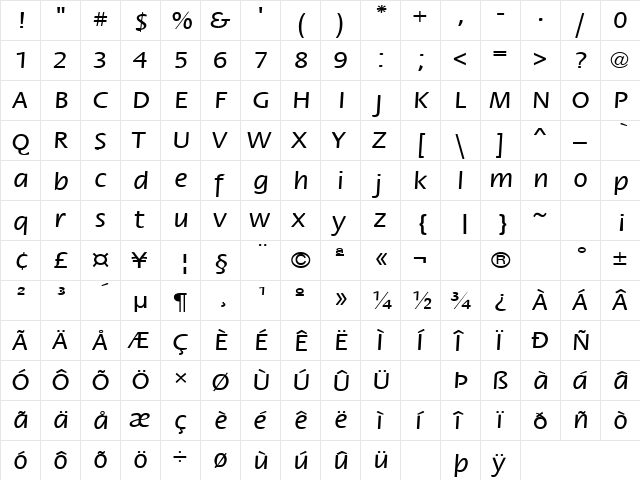
Holy Houses 4 Regular
Design Context for Holy Houses 4 Typeface
Holy Houses 4 offers clean, dependable letterforms without strong stylistic allegiance, making it a practical choice for designers who need flexibility.